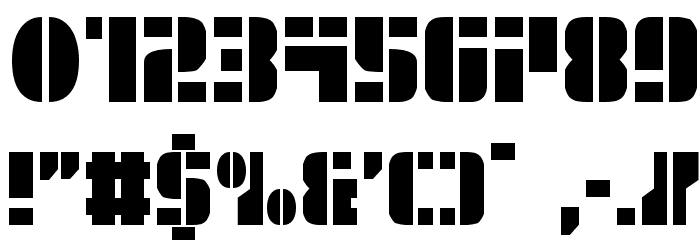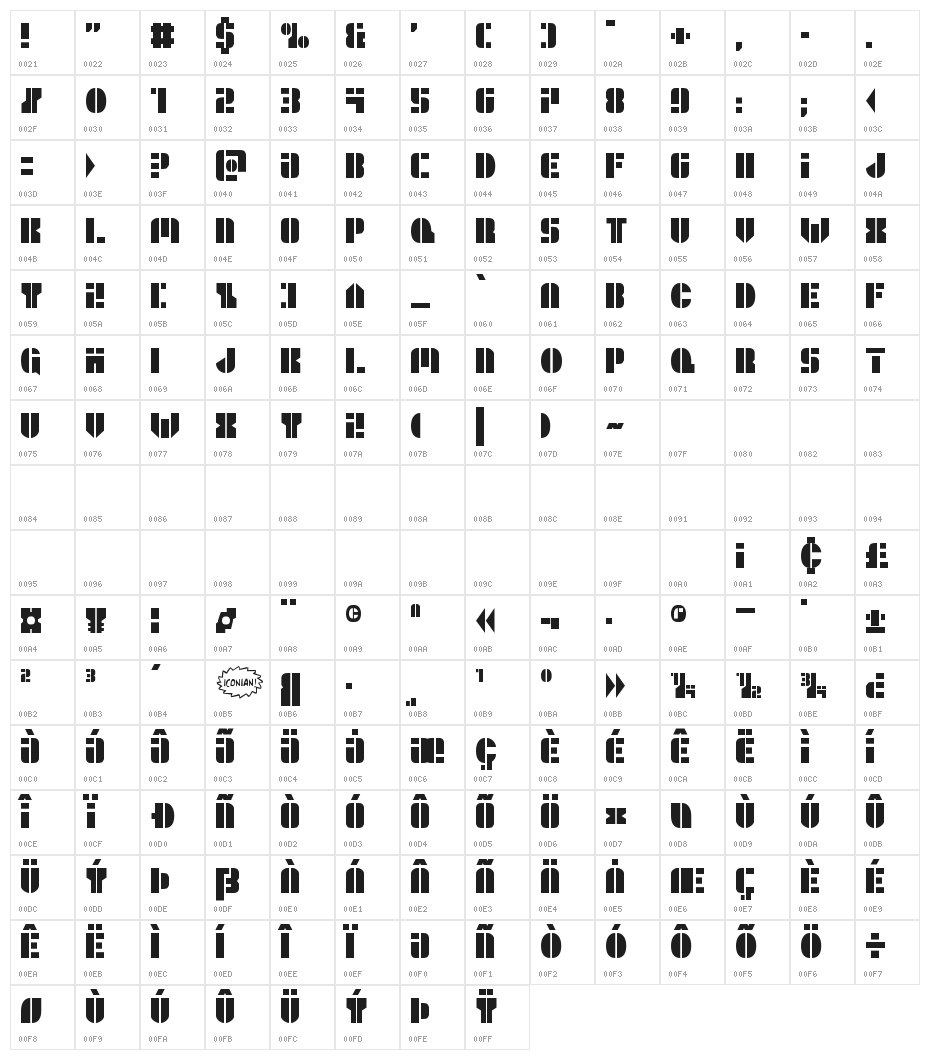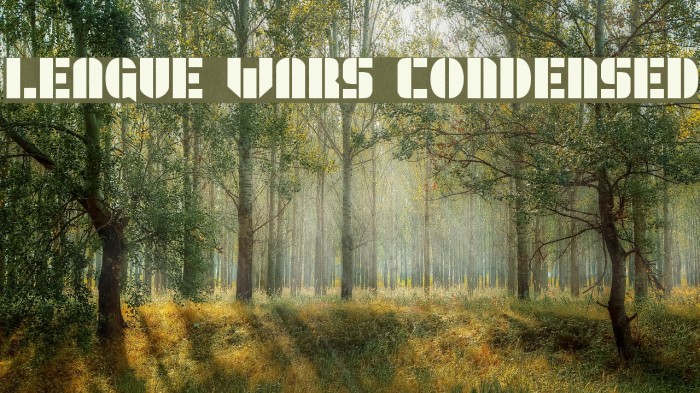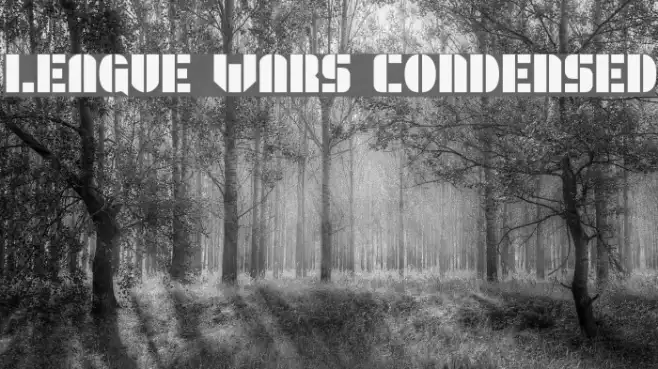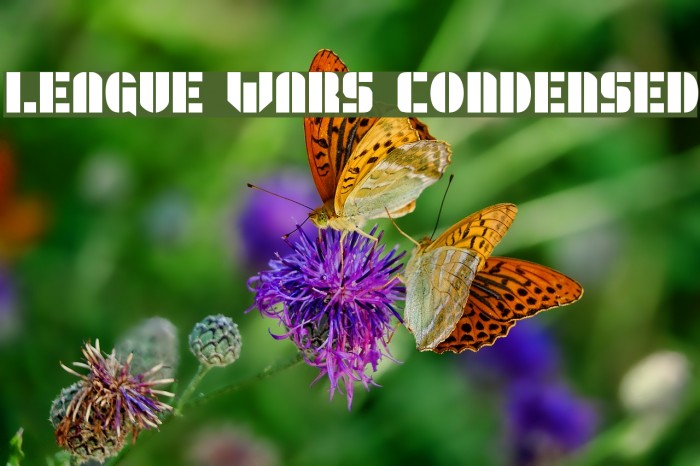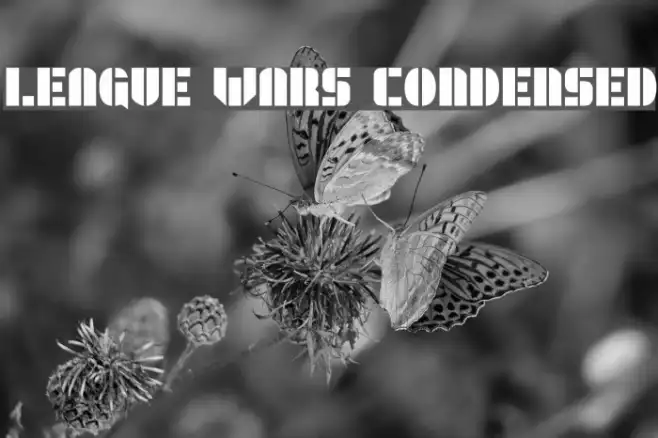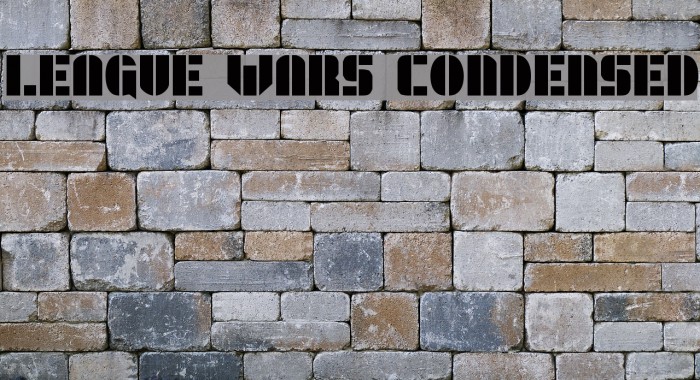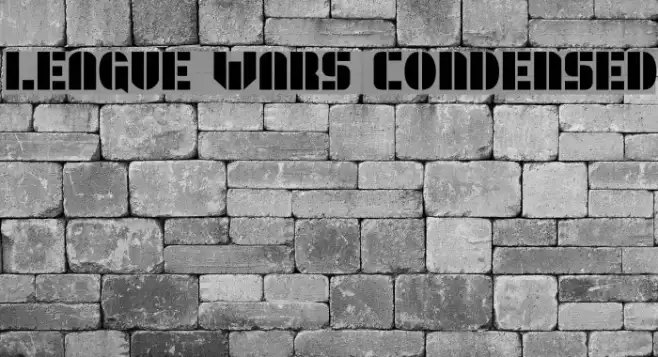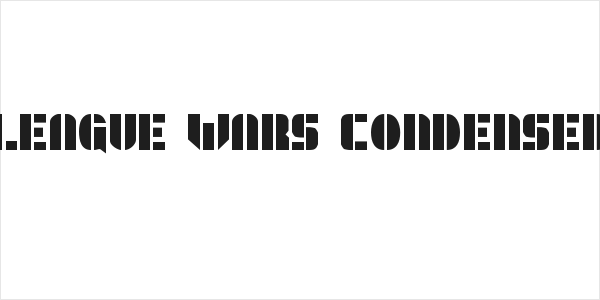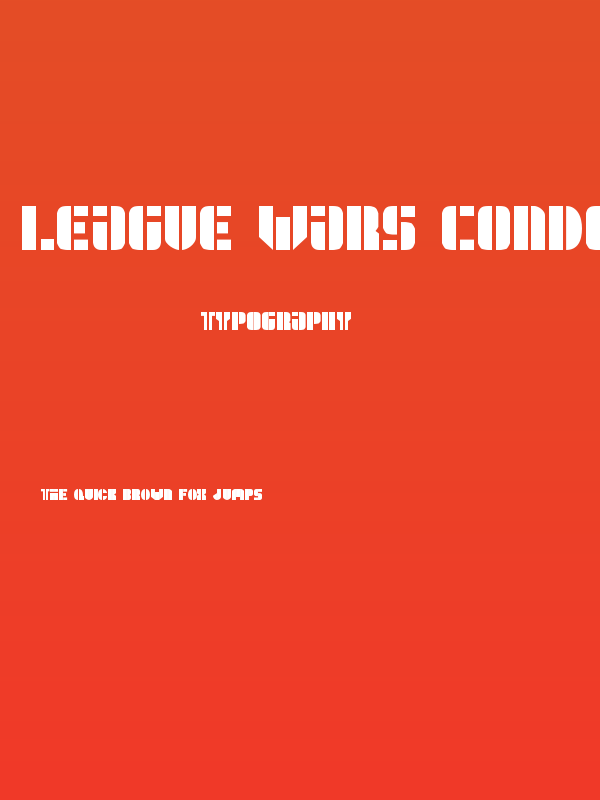
League Wars Condensed Font
League Wars Condensed Description
This font features a bold, geometric design with a condensed structure, making it highly impactful and attention-grabbing. The characters are constructed with thick, uniform strokes and sharp angles, creating a modern and futuristic aesthetic. The uppercase and lowercase letters maintain a consistent style, with minimal variation in stroke width, contributing to a cohesive and streamlined appearance. The numbers and special characters follow the same design principles, ensuring uniformity across all elements. This font's unique style is reminiscent of stencil or military-inspired typography, making it suitable for projects that require a strong, assertive presence.
| Proposed Projects | Ideal for branding, posters, video game titles, and any design requiring a strong, impactful look. |